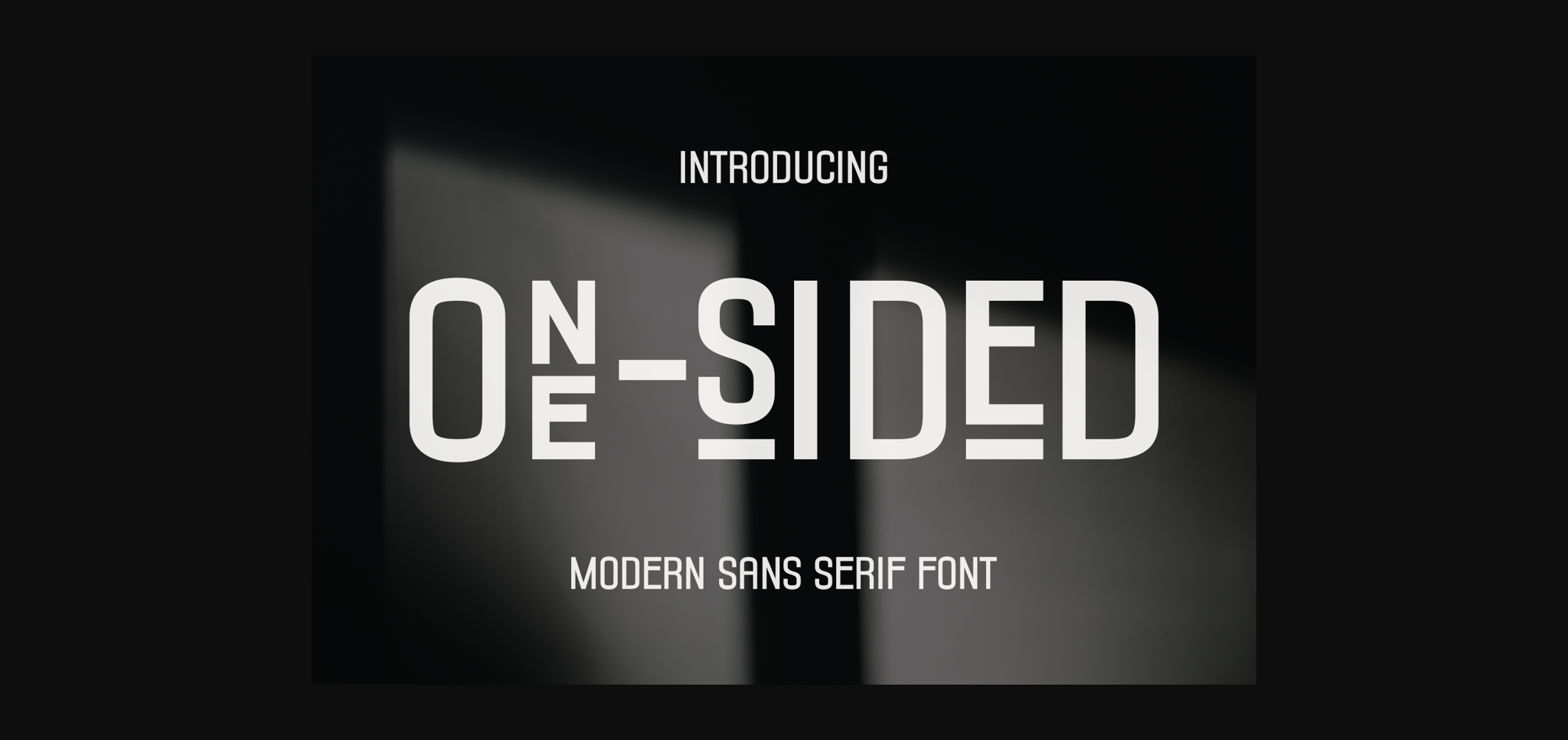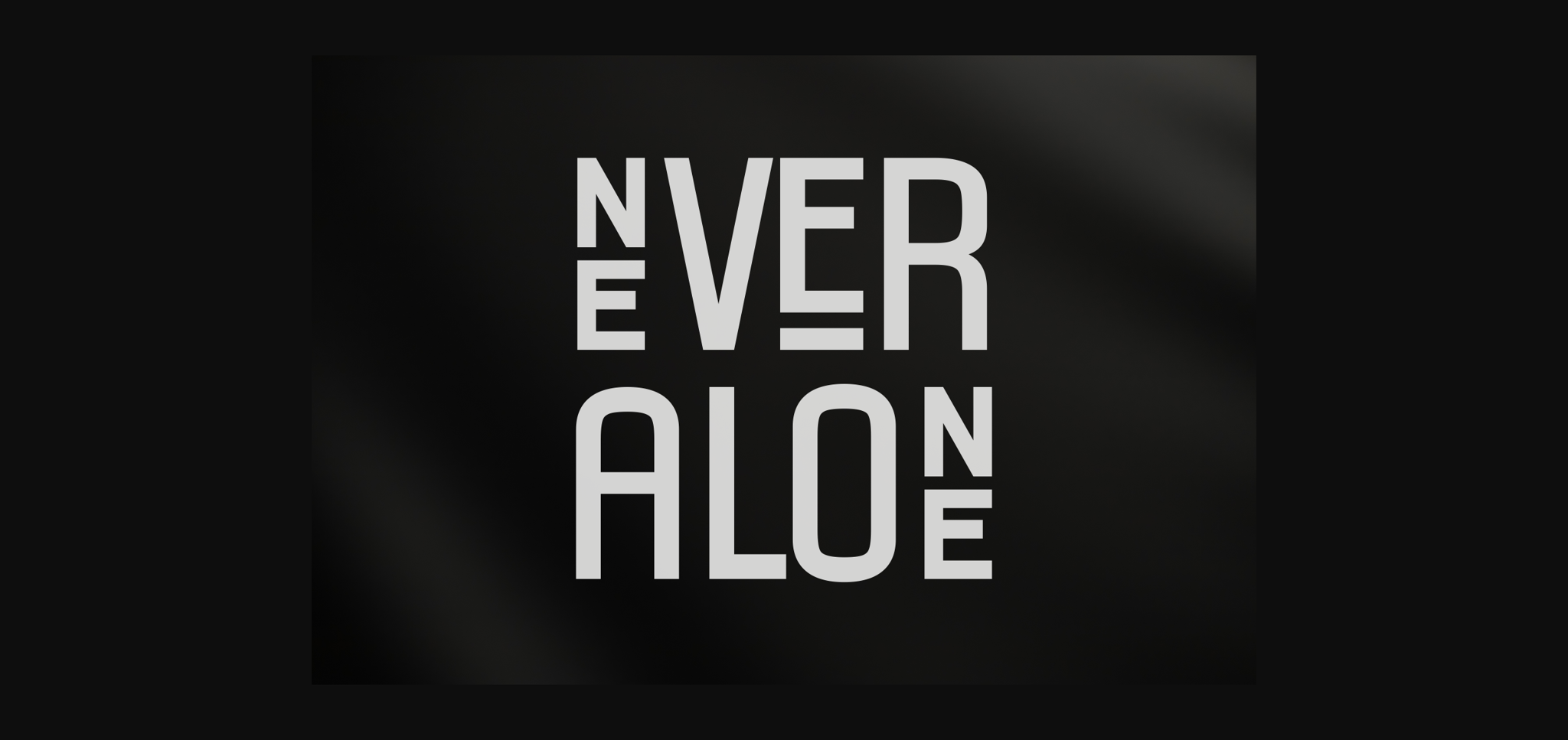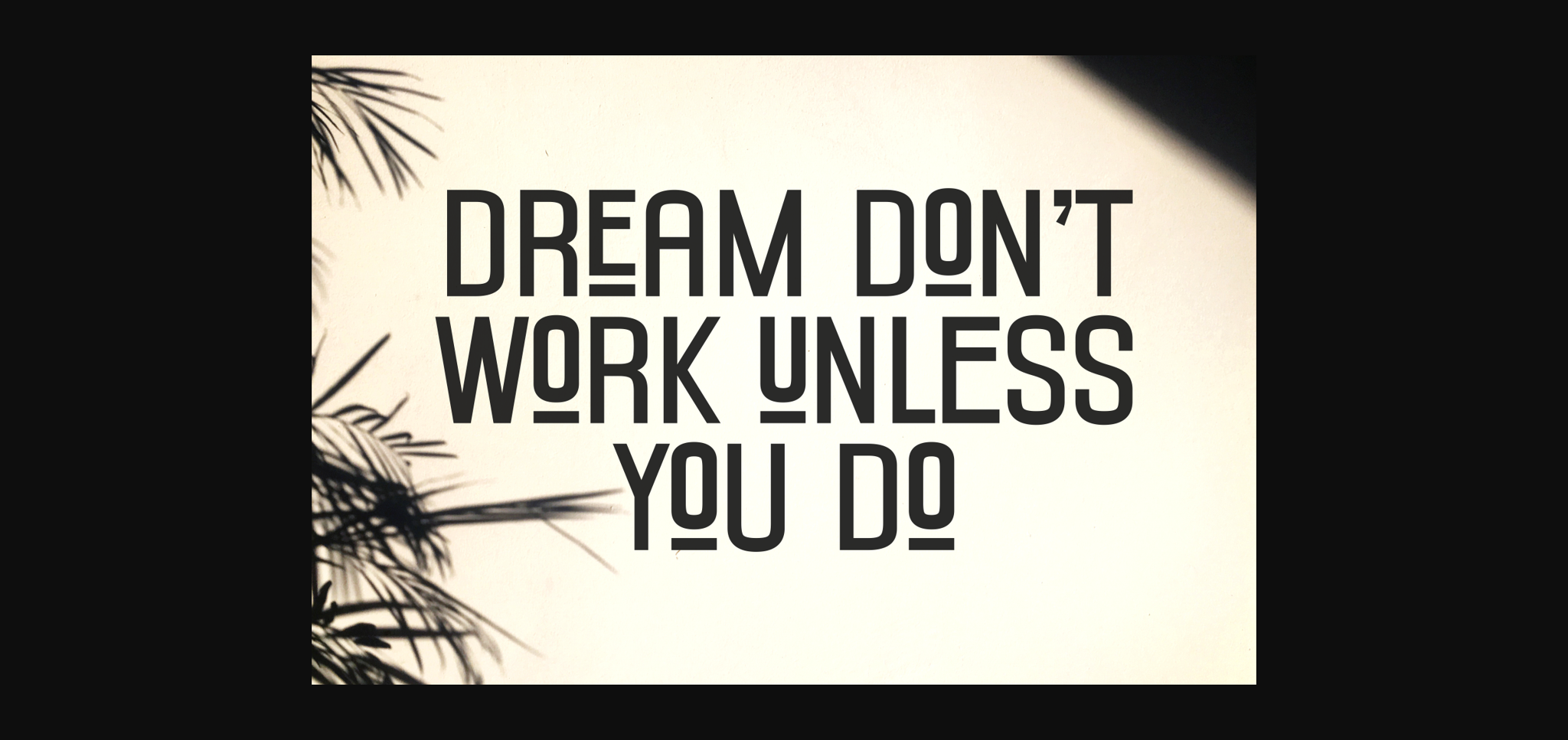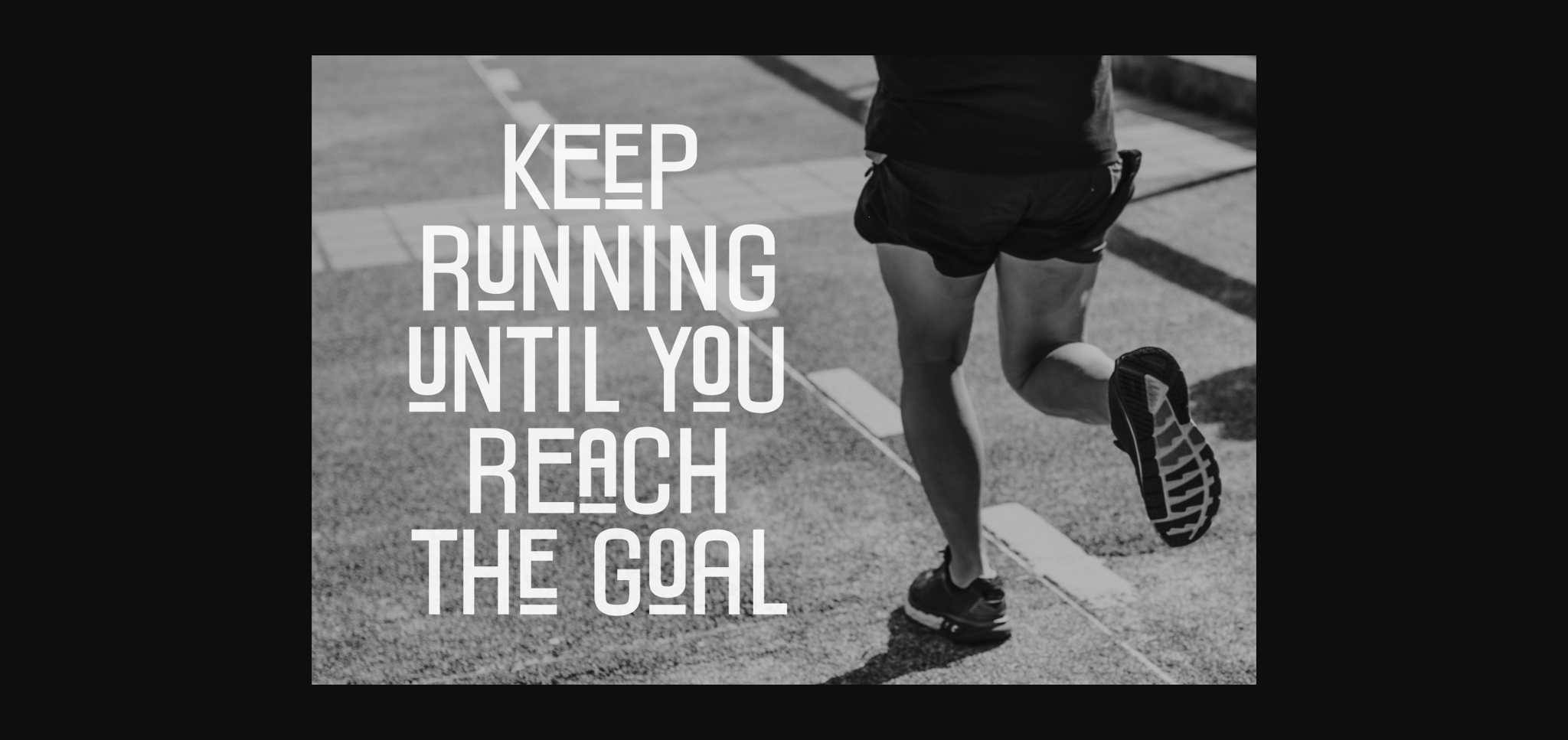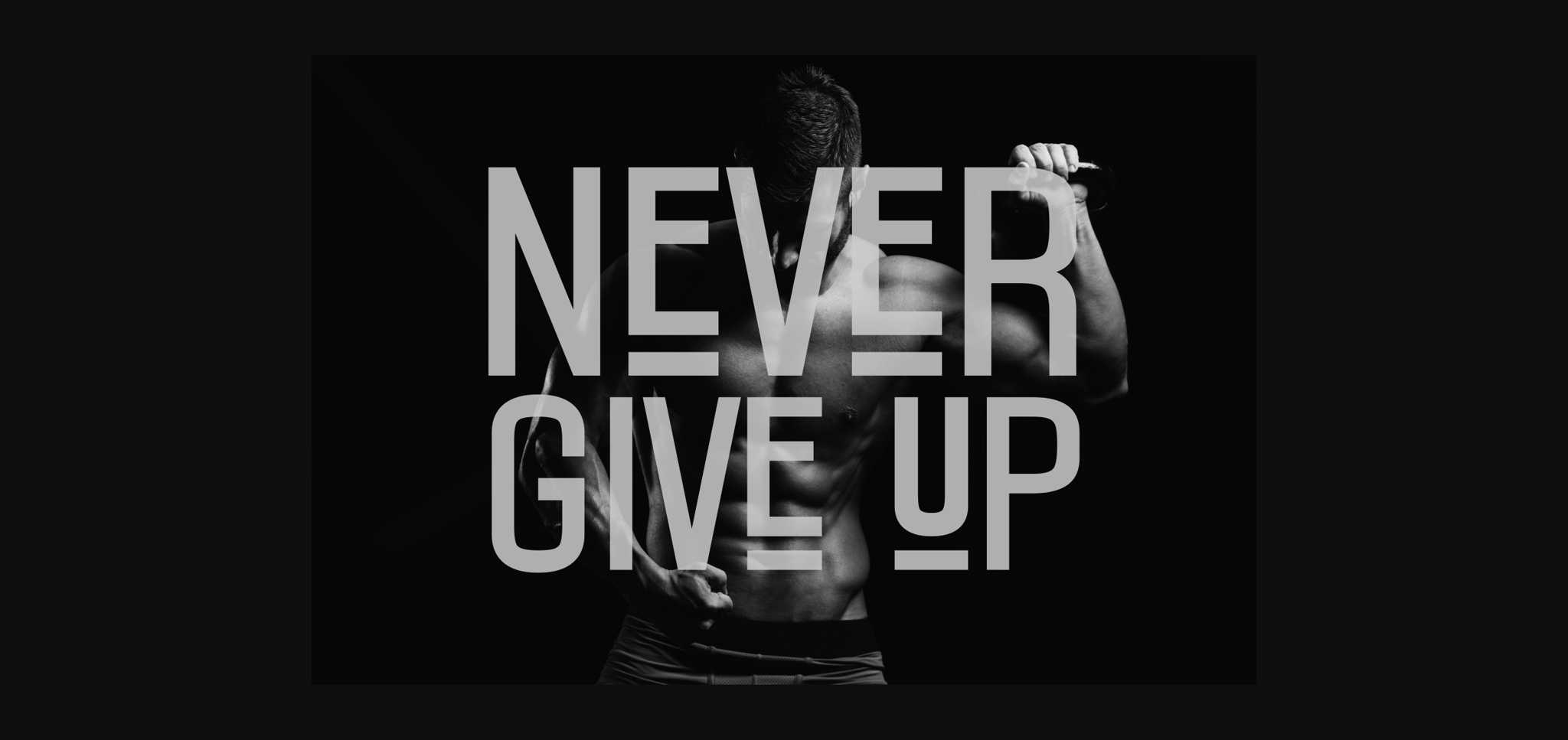
About One Sided Font
One Sided is a sleek and contemporary sans-serif font, that exudes minimalistic elegance. Its clean lines and sharp angles make it perfect for a wide range of design projects, from corporate branding to digital interfaces. With a distinct one-sided emphasis, it offers a unique twist on the classic sans-serif style, making it a standout choice for modern typography.